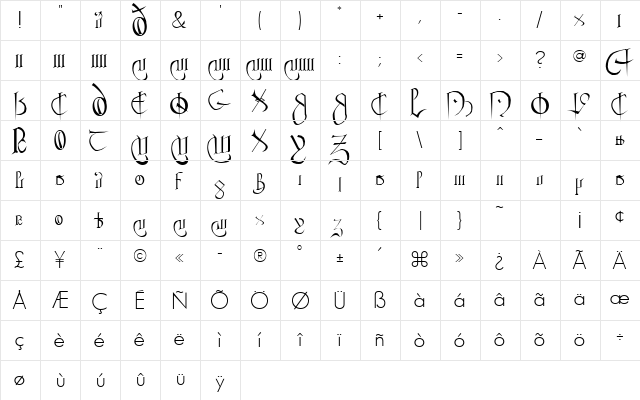
Courthand Plain
Design Context for Courthand Typeface
Courthand flows with the natural rhythm of handwritten lettering, making it ideal for designs that call for warmth and personal expression.
Font Pairing: Combine Courthand with a simple geometric sans for maximum contrast — the tension between flowing curves and clean structure is a classic typographic pairing.
Pro Tip: Pair Courthand with a clean sans-serif for supporting text. The contrast between fluid script and geometric structure creates an elegant typographic hierarchy.